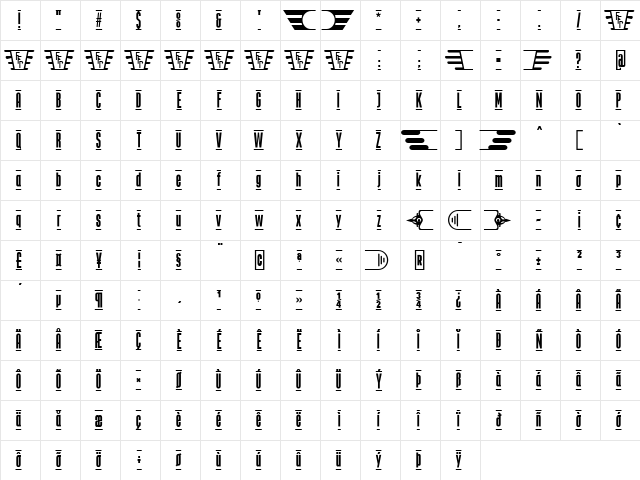
The Juke Box FFP
| Foundry | deFharo |
| Designer | Fernando Haro |
Design Context for The Juke Box Typeface
The Juke Box is a composed and adaptable typeface that performs quietly and consistently across a wide range of design contexts.